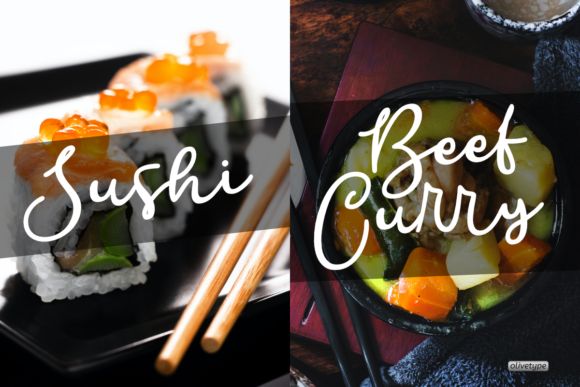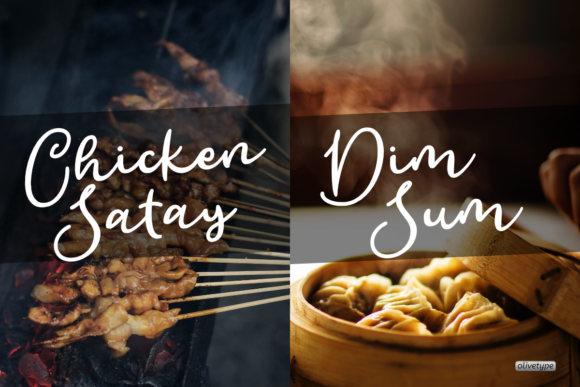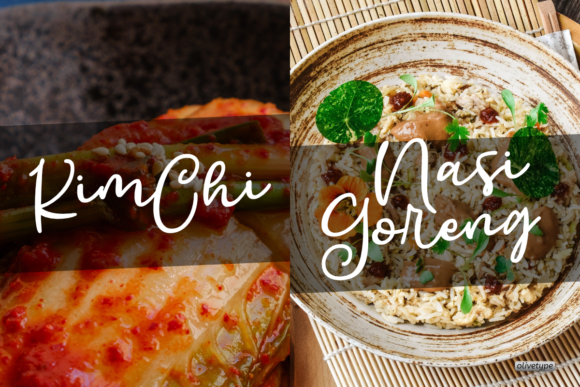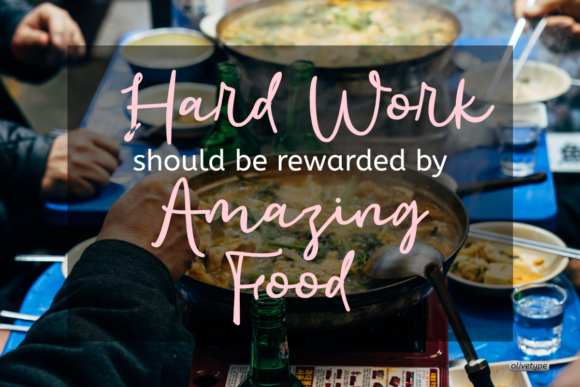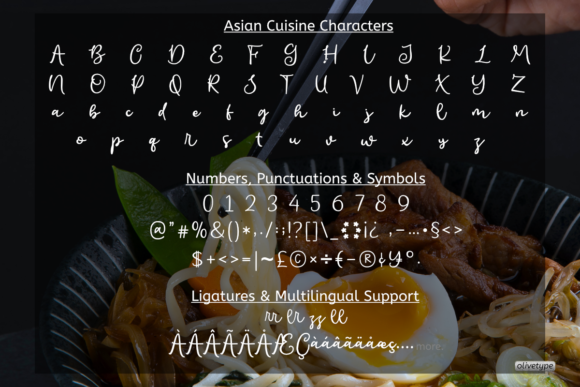
Asian Cuisine Font
About Asian Cuisine Font
Asian Cuisine is a cute and casual handwritten font with an incredibly friendly feel. Whether you’re looking for fonts for Instagram or calligraphy scripts for DIY projects, this font will turn any creative idea into a true piece of art!